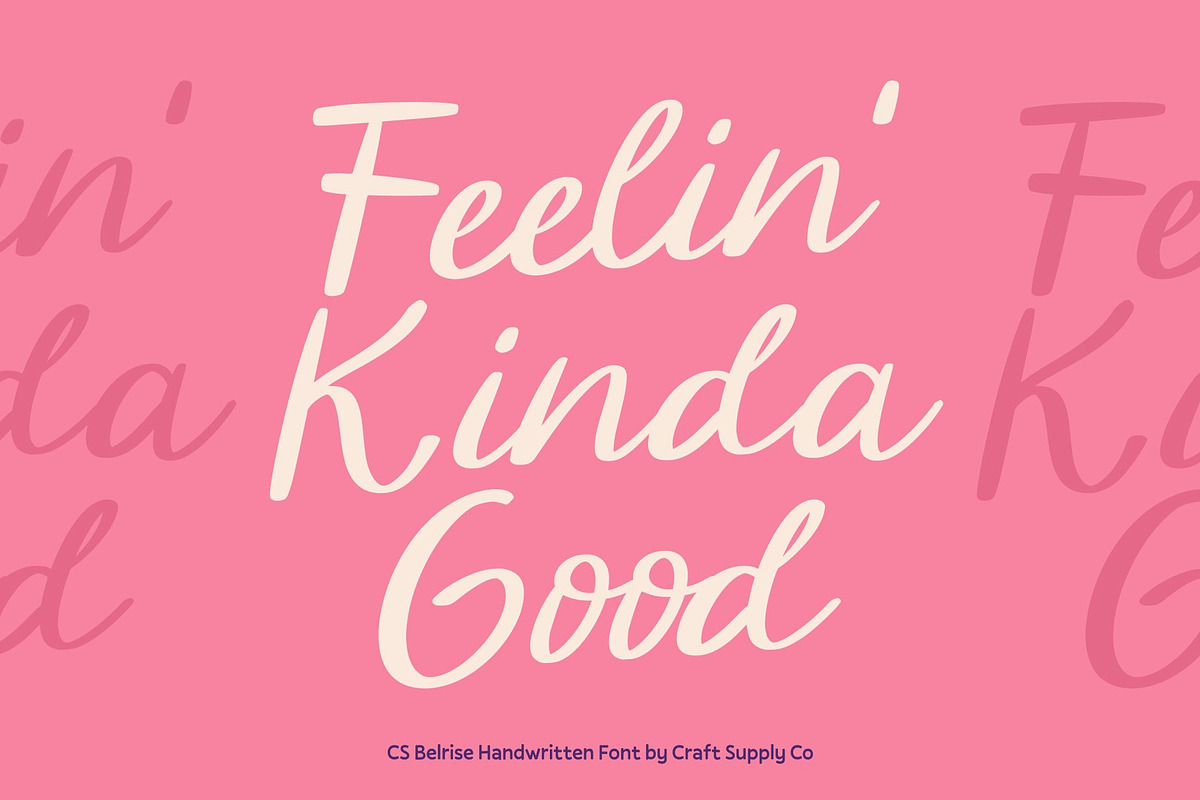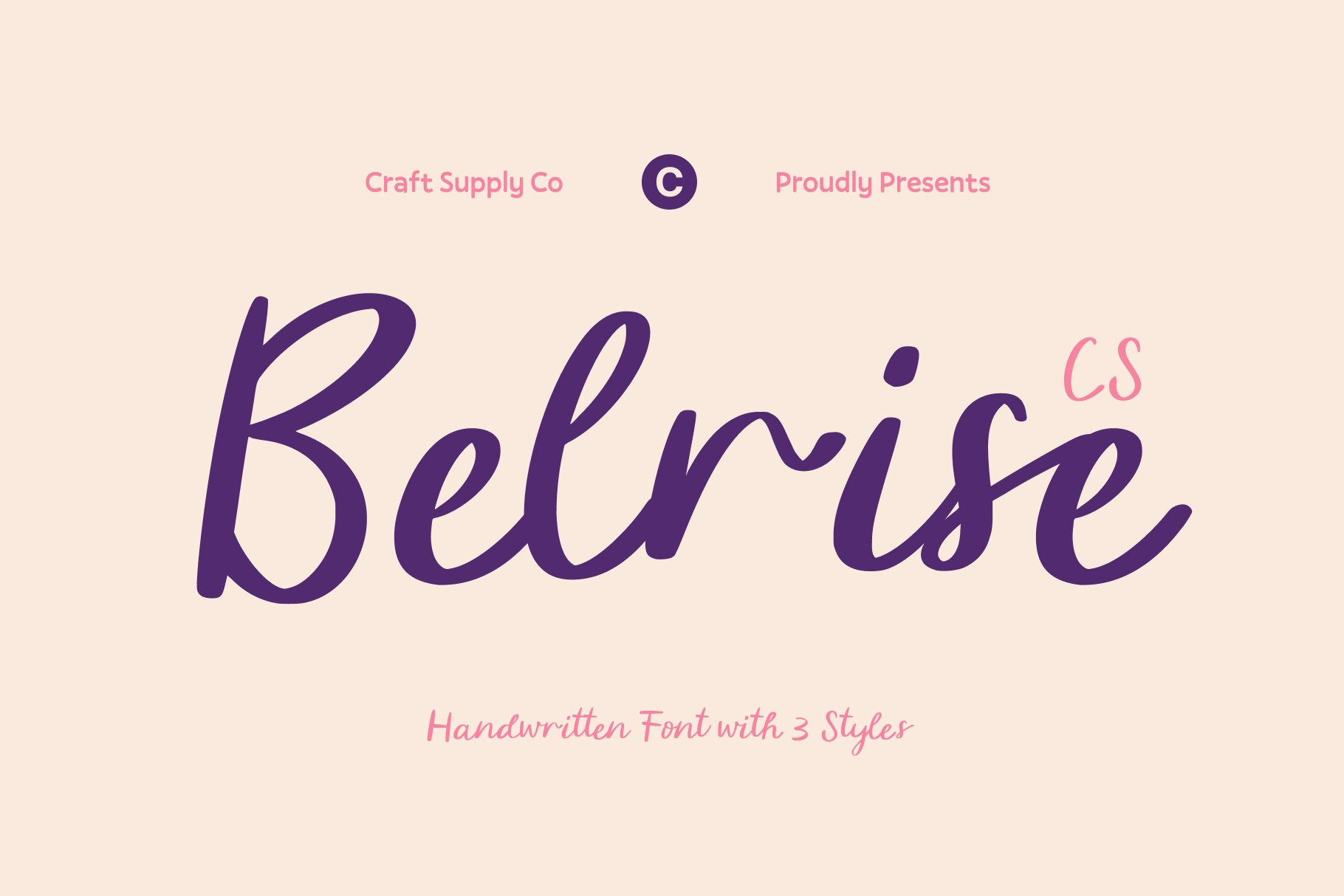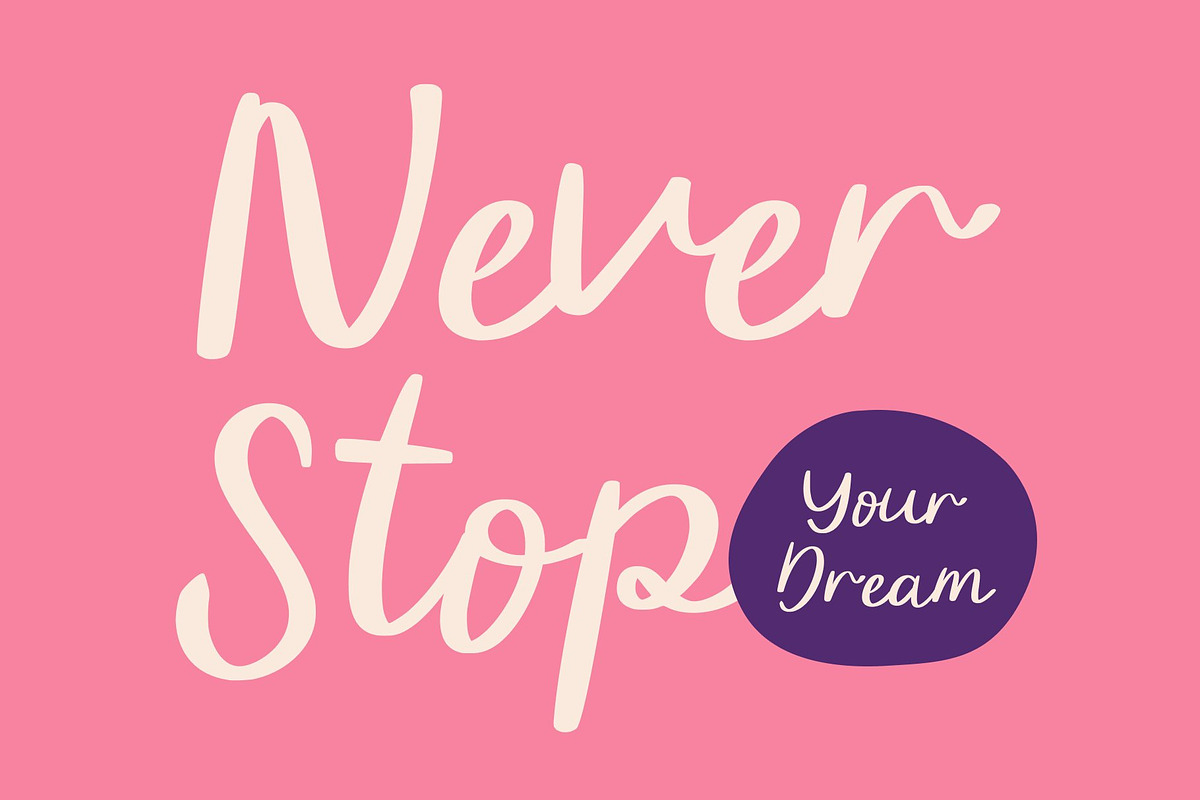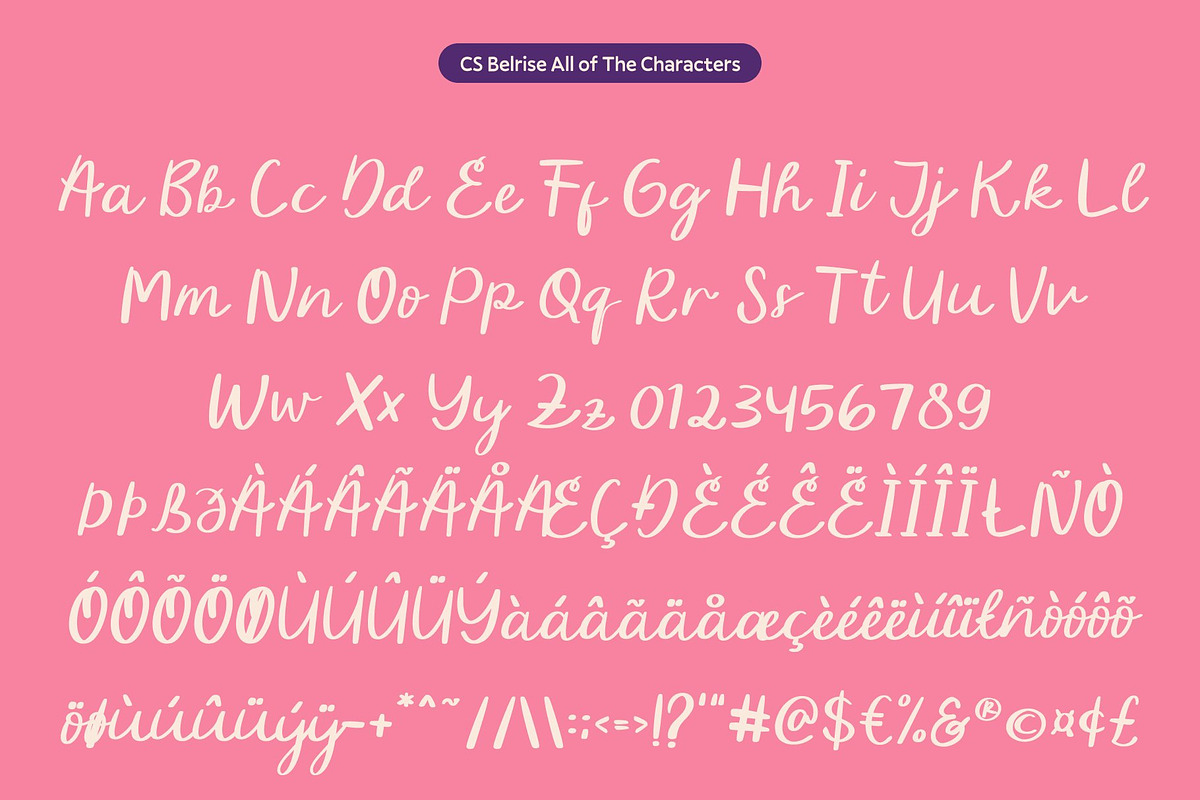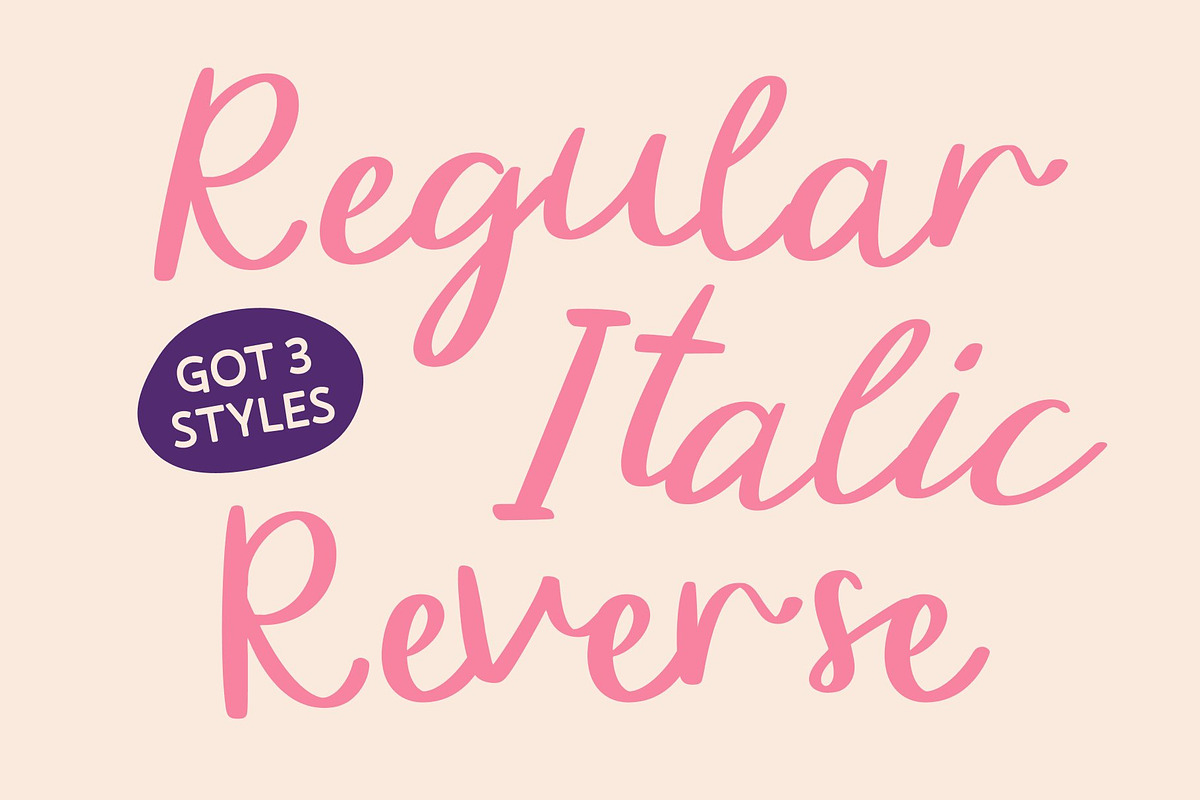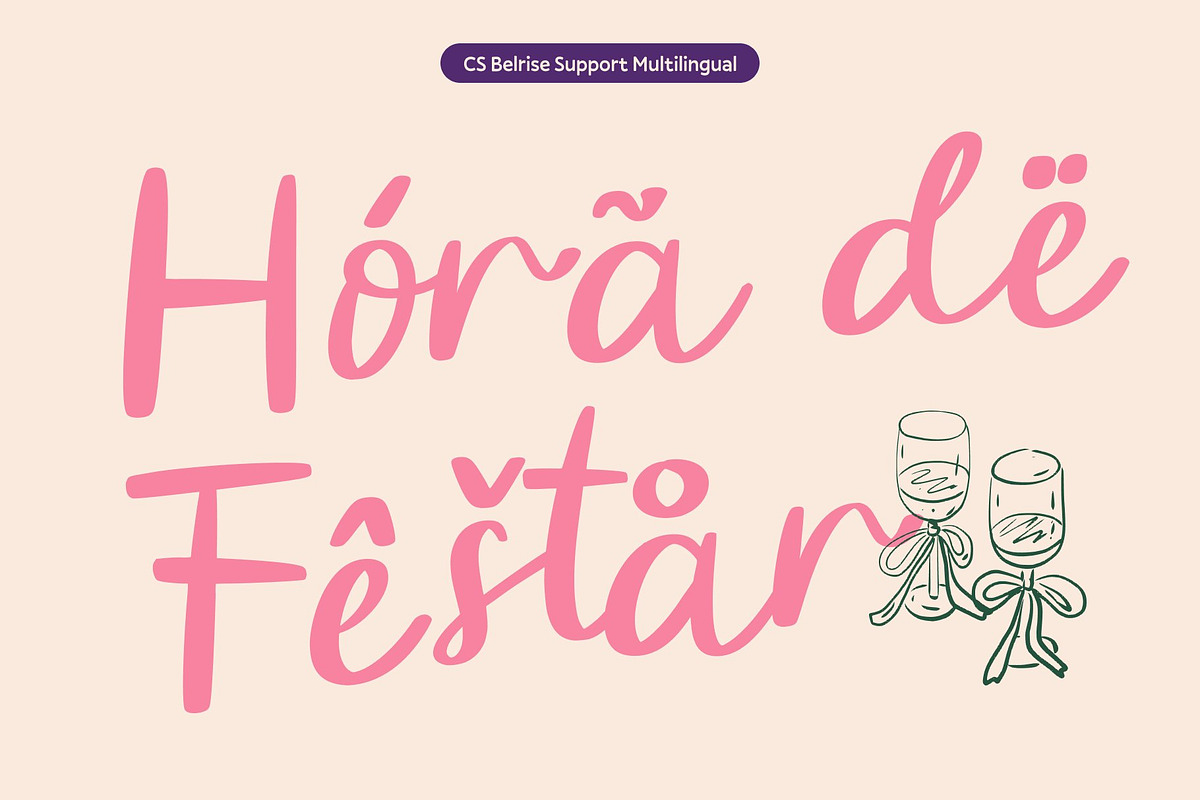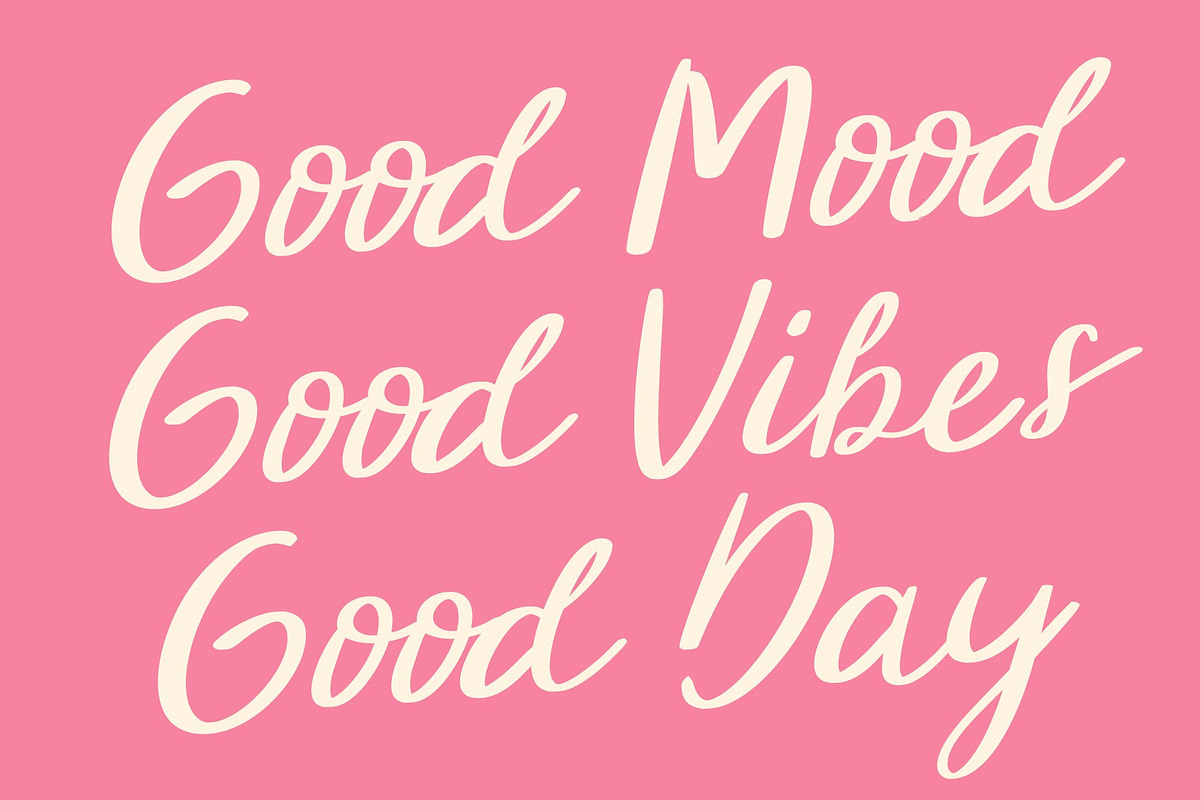
CS Belrise – Beauty Script Font
CS Belrise – Beauty Handwriting Script with Mediterranean Grace
Fluid Strokes with Stylish Handwritten Beauty This is a beauty handwriting script font designed with soft, fluid strokes that bring an elegant handwritten charm to any project. Each letter flows naturally, creating a graceful rhythm that feels warm, expressive, and beautifully refined. Its stylish handcrafted appearance makes this font a standout script for designers seeking sophistication wrapped in simplicity.
Mediterranean Elegance for a Distinctive Flair Inspired by the serene beauty of Mediterranean handwriting, this font carries a gentle, sun-kissed character that sets it apart. Its flowing curves and airy movement evoke feelings of romance and effortless luxury. This blend of natural handwriting and refined detailing creates a font that feels both timeless and modern—perfect for designs that aim to express beauty and grace.
Perfect for Branding and Luxury Packaging This font excels in branding projects that require a high-end, personal touch. Its elegant strokes add sophistication to logos, product labels, and premium packaging designs. Whether used for fashion, beauty, artisan goods, or lifestyle brands, this font communicates quality, authenticity, and subtle luxury
Ideal for Wedding Invitations and Romantic Designs With its romantic flow and refined softness, this font shines in wedding invitations, event stationery, and heartfelt greeting cards. Its delicate motion enhances emotional messages, giving each piece a meaningful and intimate feel.
- CS Belrise Regular
- CS Belrise Italic
- CS Belrise Reverse Italic